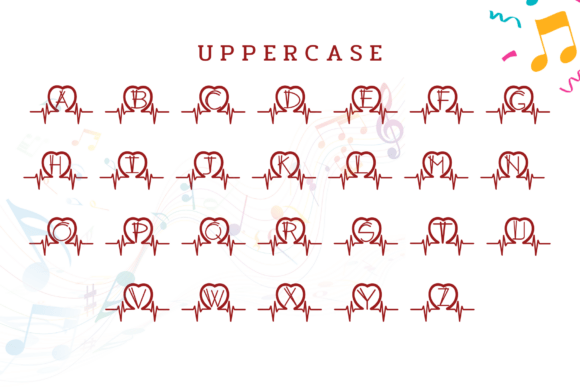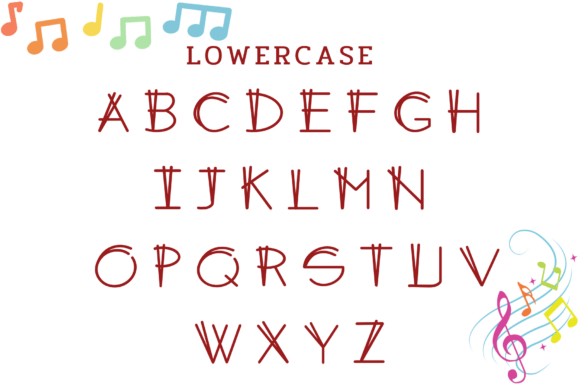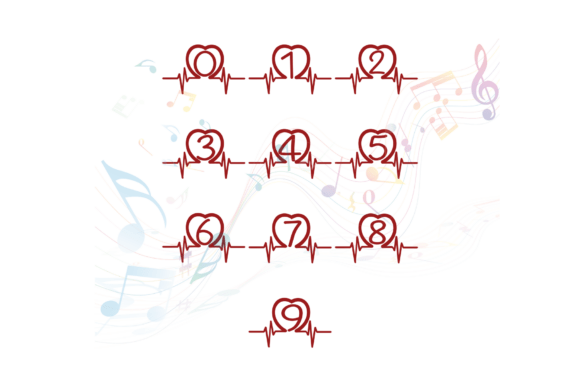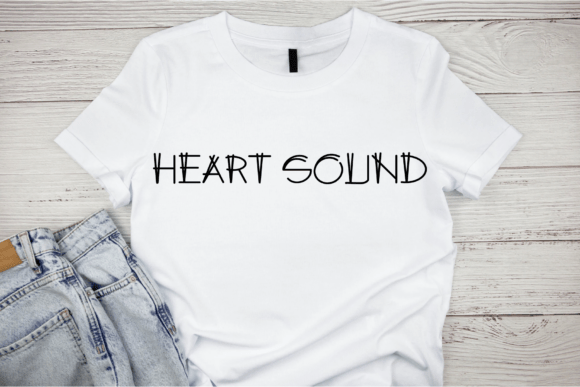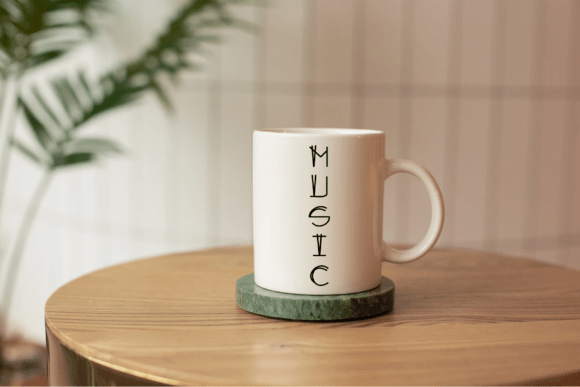
Introduction to Heart Sound Font
As designers, we’ve all been there – staring at a blank canvas, waiting for the perfect spark to ignite our creative project. For some, it’s the sound of a gentle melody; for others, it’s the rhythm of a beating heart. And then, it hits you – the perfect combination of love and rhythm that sets your project ablaze. Welcome to the world of Heart Sound Font, a bold decorative typeface that fuses these two elements into a truly unique and captivating design.
Whether you’re working on a romantic design, health and wellness branding, music-themed project, or simply need an expressive headline to make your message pop, Heart Sound Font is the perfect design resource to bring your vision to life. With its high-quality lines and artistic letterforms, this font is sure to add a touch of creativity and emotion to any project.
Key Features of Heart Sound Font
- High-quality design: This font is designed with precision and care to provide a professional look for any creative project.
- Transparent background: This font features a transparent background, making it easy to layer over any image or design element.
- Unique characteristics: The Heart Sound Font features a unique, hand-drawn design that adds a touch of personality to any creative project.
Honest Review: Heart Sound Font
I recently stumbled upon the Heart Sound Font while searching for a unique design resource for a creative project. As a designer, I was excited to try it out and see if it would add an interesting touch to my work.
Here’s what works well: ✨ The font is high quality and comes with a transparent background, making it easy to integrate into any design. The sound wave design elements are also quite versatile and can be used in a variety of contexts.
However, there are a few limitations: ⚠️ The font only includes uppercase letters, which might be a problem for those who need to use it for longer texts. Additionally, some of the design elements may not be editable, which could be a drawback for designers who like to customize their work.
Overall, I think the Heart Sound Font is a great addition to any designer’s toolkit. While it may have some limitations, its unique design and high quality make it a valuable resource for creative projects.
- Unique sound wave design elements
- Only includes uppercase letters
- Some design elements may not be editable
Tips for Getting the Most Out of Heart Sound Font
Use the font in combination with other design elements to create a visually appealing design. Experiment with different font sizes and colors to find the perfect look for your project. The Heart Sound Font is a versatile design resource that can be used in a variety of creative projects.
The Heart Sound Font is commonly used in design projects that require a creative and unique touch, such as infographics, posters, and social media graphics. It’s also a great choice for projects that involve health and wellness, such as fitness and nutrition designs.